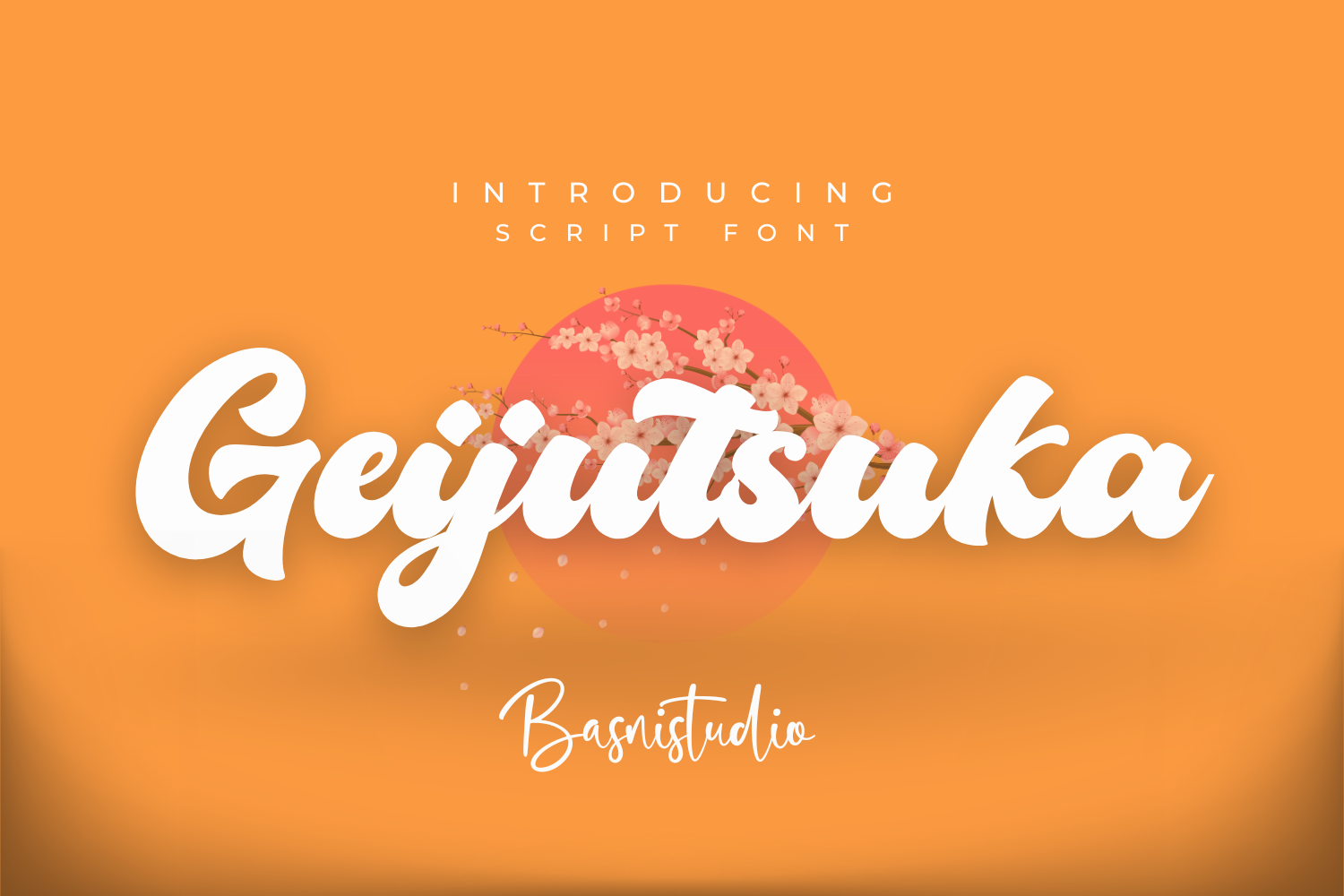
Geijutsuka Script Font
✨ Introducing Geijutsuka Script Font
Make your message unforgettable. Geijutsuka isn’t just a font — it’s attitude in every curve, confidence in every letter.
🖋️ Designed for impact 🎨 Perfect for posters, headlines, branding & more 💥 Sharp, stylish, and unapologetically bold
Your words deserve to be seen. Say it loud. Say it with Geijutsuka.